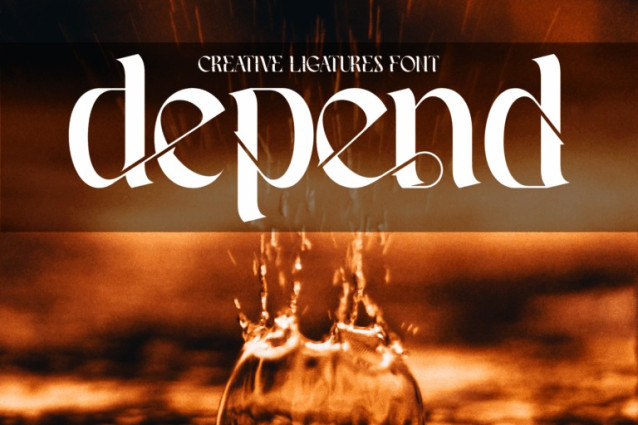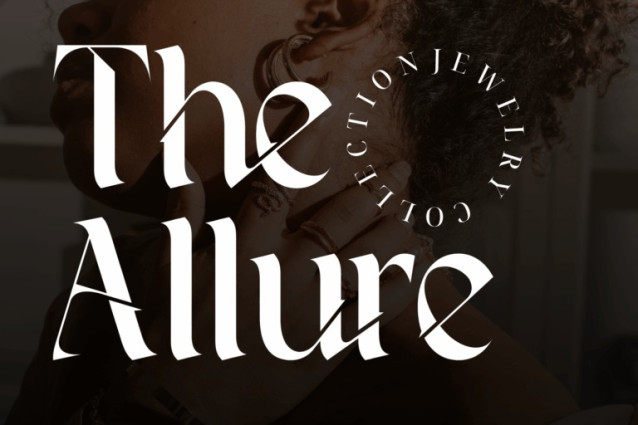
Creative Ligatures Font
Creative Ligatures Font is a bold experimental serif font that celebrates the art of letterform connection. With high contrast strokes and dramatic diagonals, this typeface introduces a unique rhythm through hundreds of imaginative ligatures and sweeping terminals. Inspired by modern calligraphy and typographic innovation, Creative Ligatures is perfect for branding, editorial design, fashion campaigns, and bold statement posters. The characters are meticulously crafted to form harmonious, expressive ligatures that transform text into visual poetry.
Font Features:
Uppercase and Lowercase Letters
~100 Creative Ligatures
Accented Characters (Multilingual Support)
Highly stylized cuts and stroke intersections
About 100 ligatures combined with Stylistic Alternates Font: